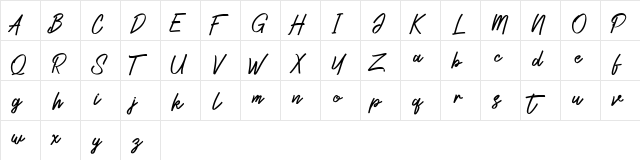
Zeuty Script Demo Demo
| Foundry | Maulana Creative |
| Designer | Maulana Creative |
Design Context for Zeuty Script Demo Typeface
Zeuty Script Demo brings a calligraphic fluidity to the page — its connecting strokes and expressive curves give it an unmistakably human quality.